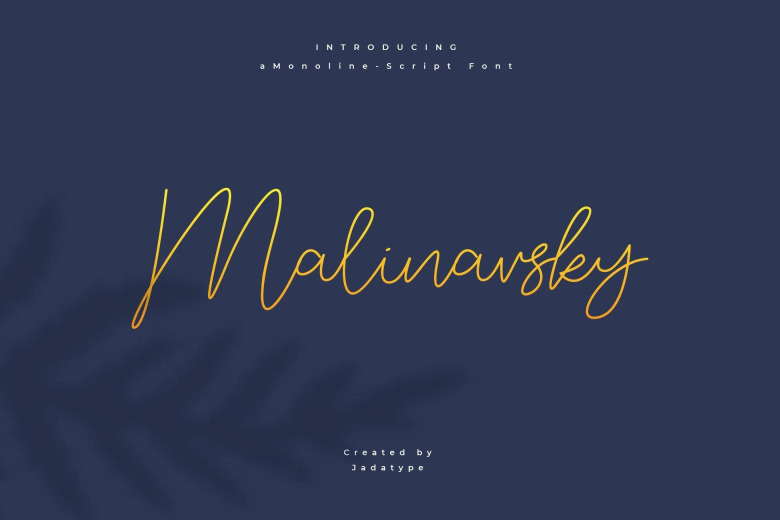
Malinavsky Font
Malinavsky is a script handwritten font with monoline lines. gives the impression of a smooth, simple, but elegant. can be used for your wedding needs, diaries, crafts, invitation cards, and others. contains standard English, multilingual, and ligature letters. can be installed in applications such as adobe family, affinity, Ms. Word, and similar applications.
Malinavsky Monoline Script Font